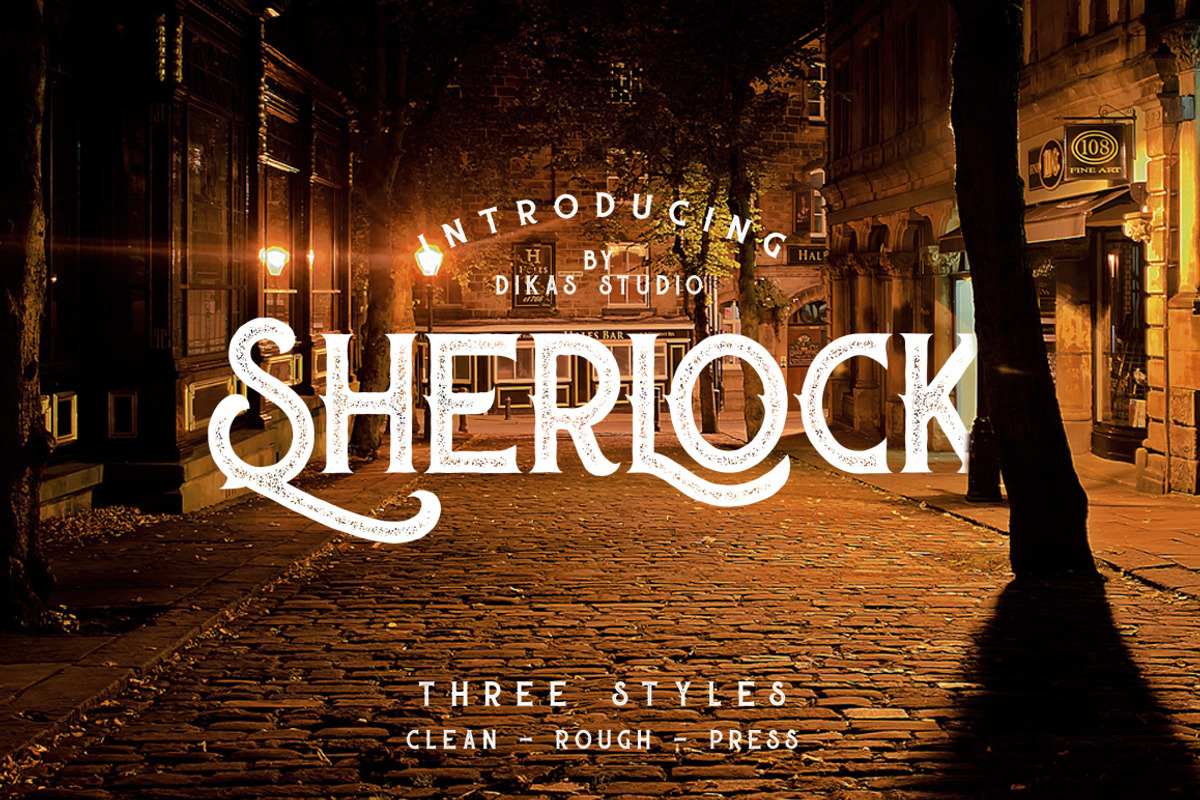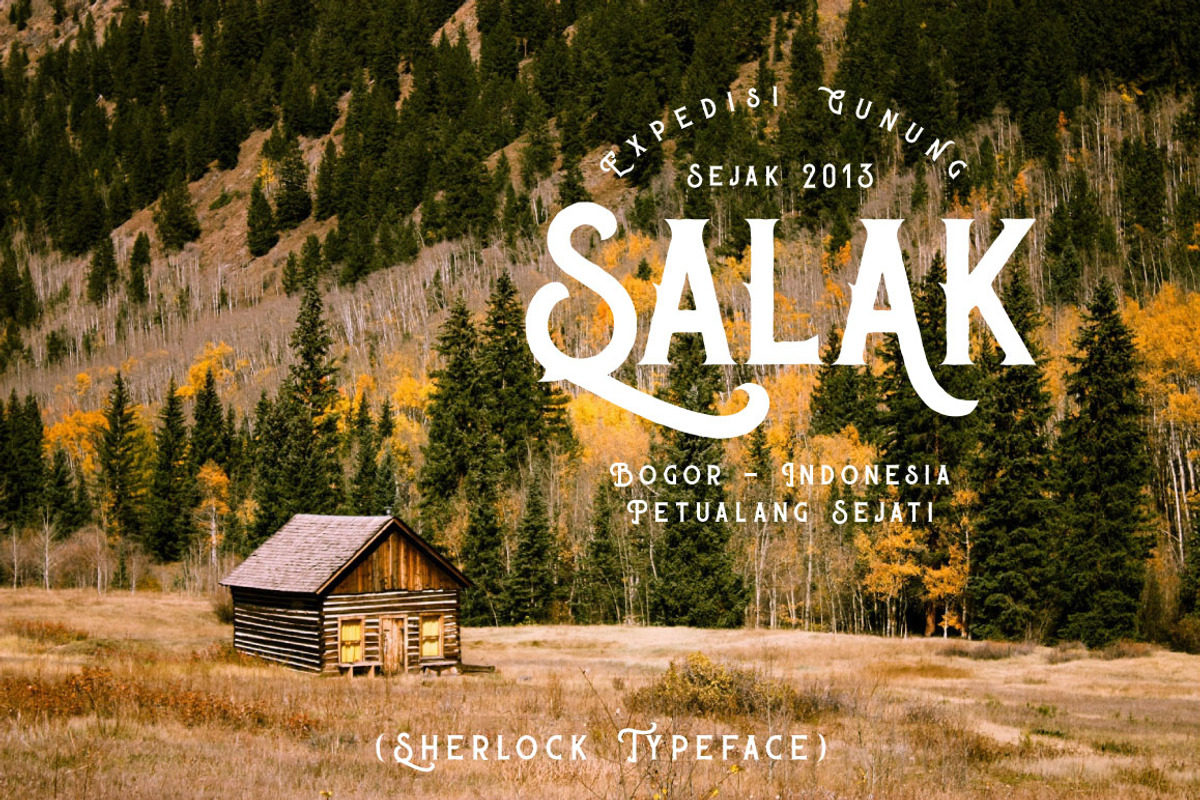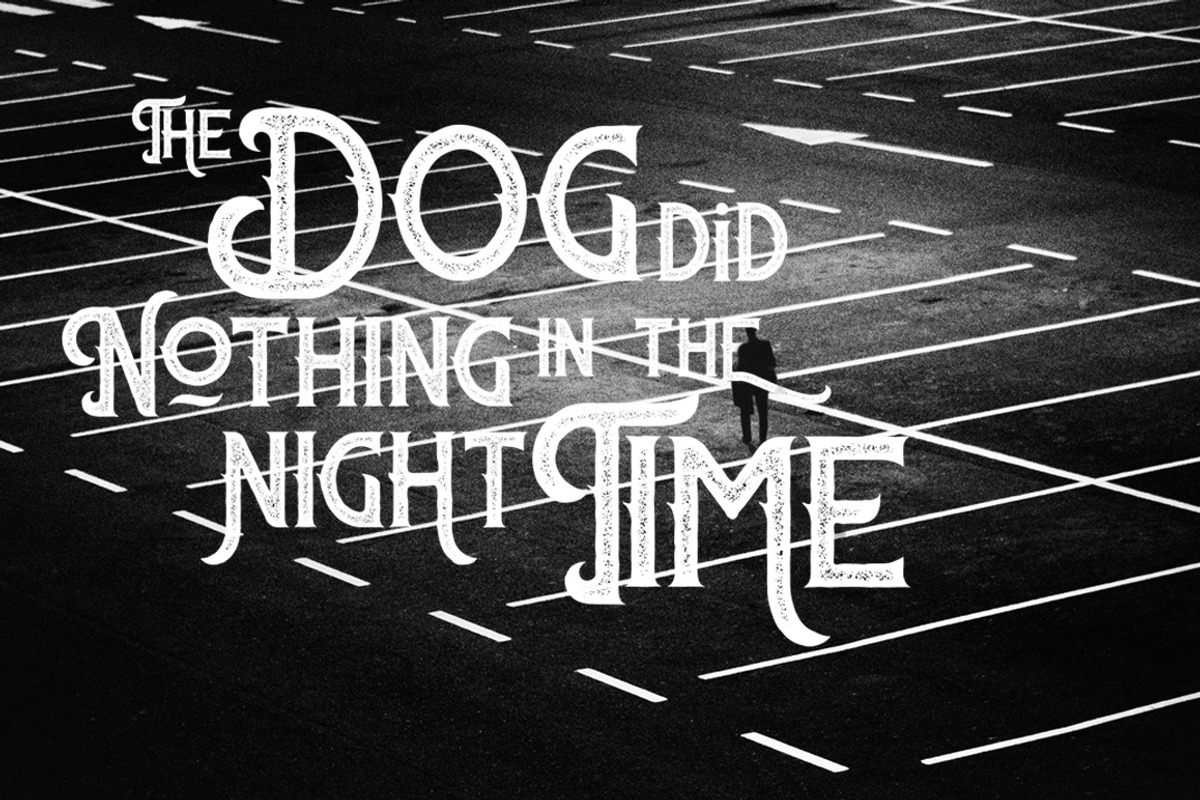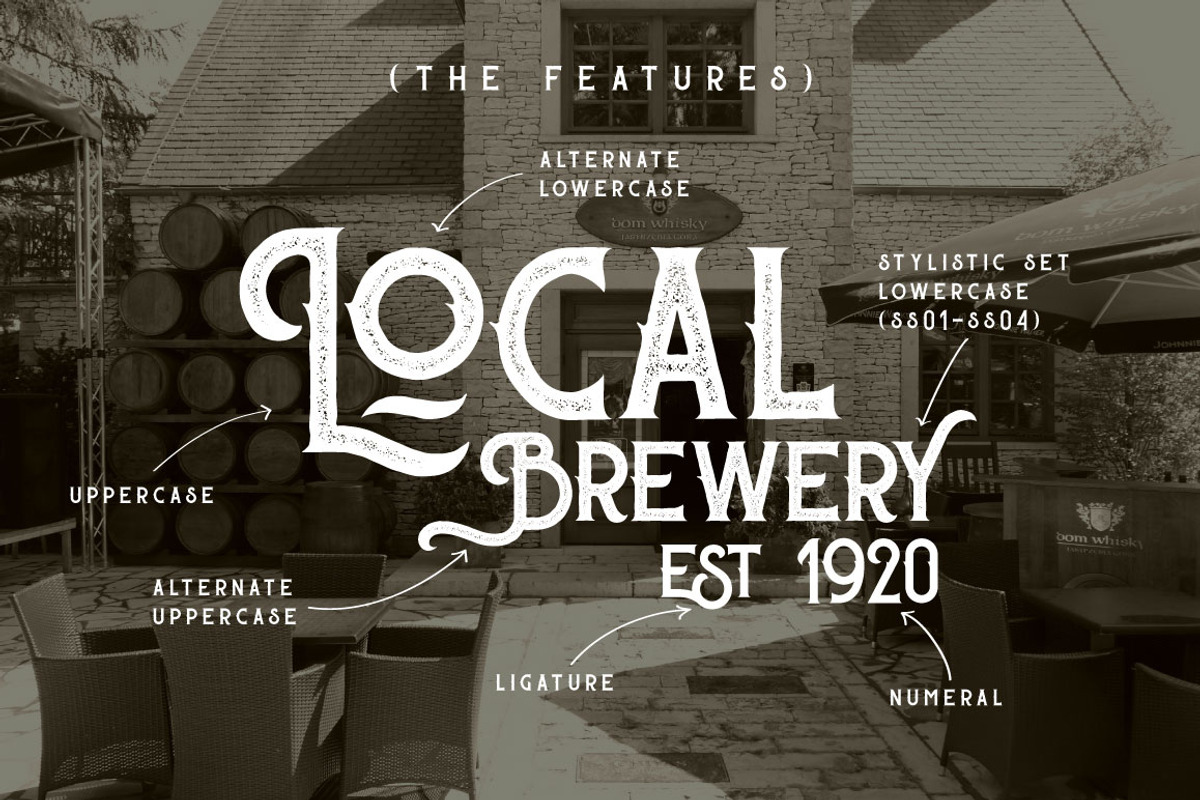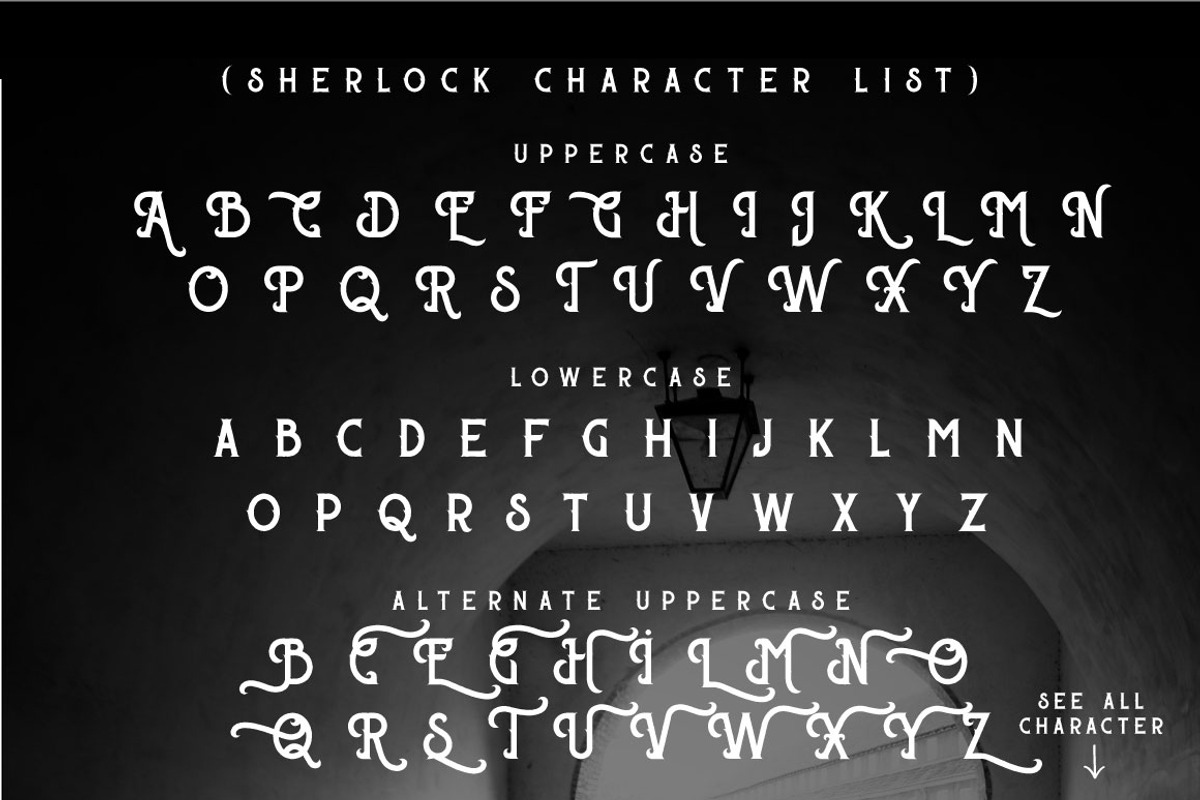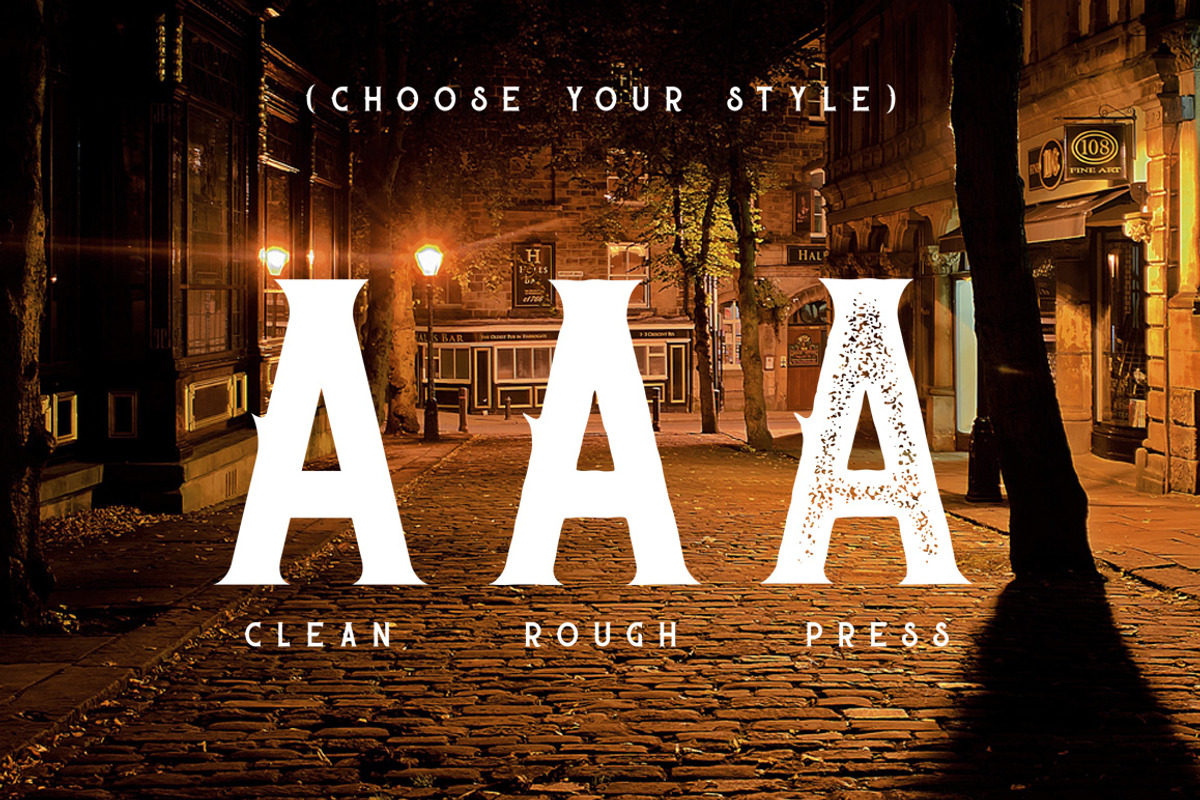
Sherlock Typeface - 3 Font Styles
Yes, Sherlock have 3 Style : Clean, Rough & Press, with handdrawn character and opentype feature its very helpfull to get Vintage design. Suitable and applicable to create vintage design, branding, logos, product packaging, invitation, qoutes, t-shirt, label poster etc.
Lowercase
Punctuation and Number
Multilingual Language
Alternate Character & Ligature
Stylistic Set Character ( ss01 - ss04 )